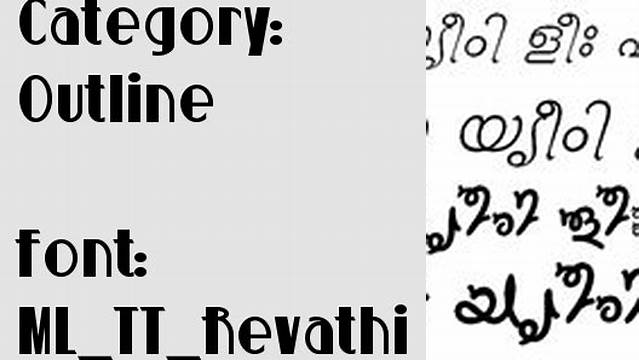
1. What is ML-TT Revathi Font?
ML-TT Revathi is a popular font known for its clean and legible design, making it suitable for a wide range of applications. This font is a favorite among designers and developers for its versatility and aesthetic appeal. ML-TT Revathi Font is designed to be easy to read, even at smaller sizes, which makes it ideal for both print and digital media. Its clear and simple structure ensures that text remains clear and comprehensible, enhancing the overall user experience.
The font's popularity stems from its ability to blend seamlessly into various design contexts, from professional documents to creative projects. The ML-TT Revathi Font supports a variety of languages, ensuring that it can be used in diverse linguistic settings. Its broad character set includes a wide range of symbols and glyphs, providing designers with the tools they need to create sophisticated and nuanced designs. The font's design adheres to principles of visual harmony, ensuring that each character complements the others, resulting in a cohesive and visually appealing typeface. This makes it a reliable choice for projects that require a high level of readability and aesthetic consistency. ML-TT Revathi Font is also frequently updated to maintain compatibility with modern software and design standards, ensuring that it remains a relevant and useful resource for designers and developers.
2. Why Use ML-TT Revathi Font?
There are several reasons why you might want to use ML-TT Revathi Font. First off, its readability is top-notch. Whether you're working on a website, a document, or a presentation, this font ensures that your text is easy to read and understand. Secondly, its clean and modern design makes it versatile for various projects. From professional reports to creative designs, ML-TT Revathi Font can adapt to different styles and aesthetics. Additionally, it supports multiple languages, making it a great choice for international projects. ML-TT Revathi Font enhances the professional appearance of any document or design. Its polished and refined characters ensure that the text looks elegant and sophisticated, contributing to a positive user experience. This makes it particularly suitable for business communications, academic papers, and marketing materials, where first impressions matter. The font's design also takes into account the needs of users with visual impairments, providing clear and distinguishable characters that improve accessibility. By using ML-TT Revathi Font, designers can create inclusive designs that cater to a wider audience, promoting inclusivity and enhancing usability. The font's consistent and reliable performance across different platforms and devices further solidifies its reputation as a trustworthy and versatile typographic resource.